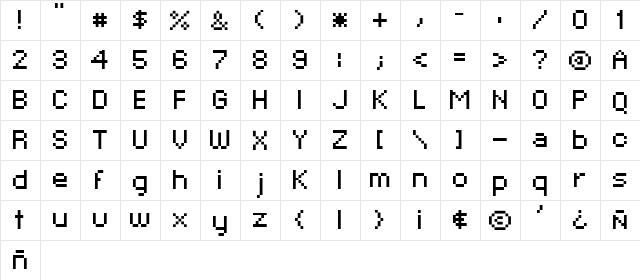
xpaider pixel explosion 02 Regular
Design Context for xpaider pixel explosion 02 Typeface
xpaider pixel explosion 02 celebrates the constraints of early digital type, turning pixel geometry into a distinctive and immediately recognisable style.
Well-suited to indie game interfaces, retro computing aesthetics, and pixel art-adjacent design work.